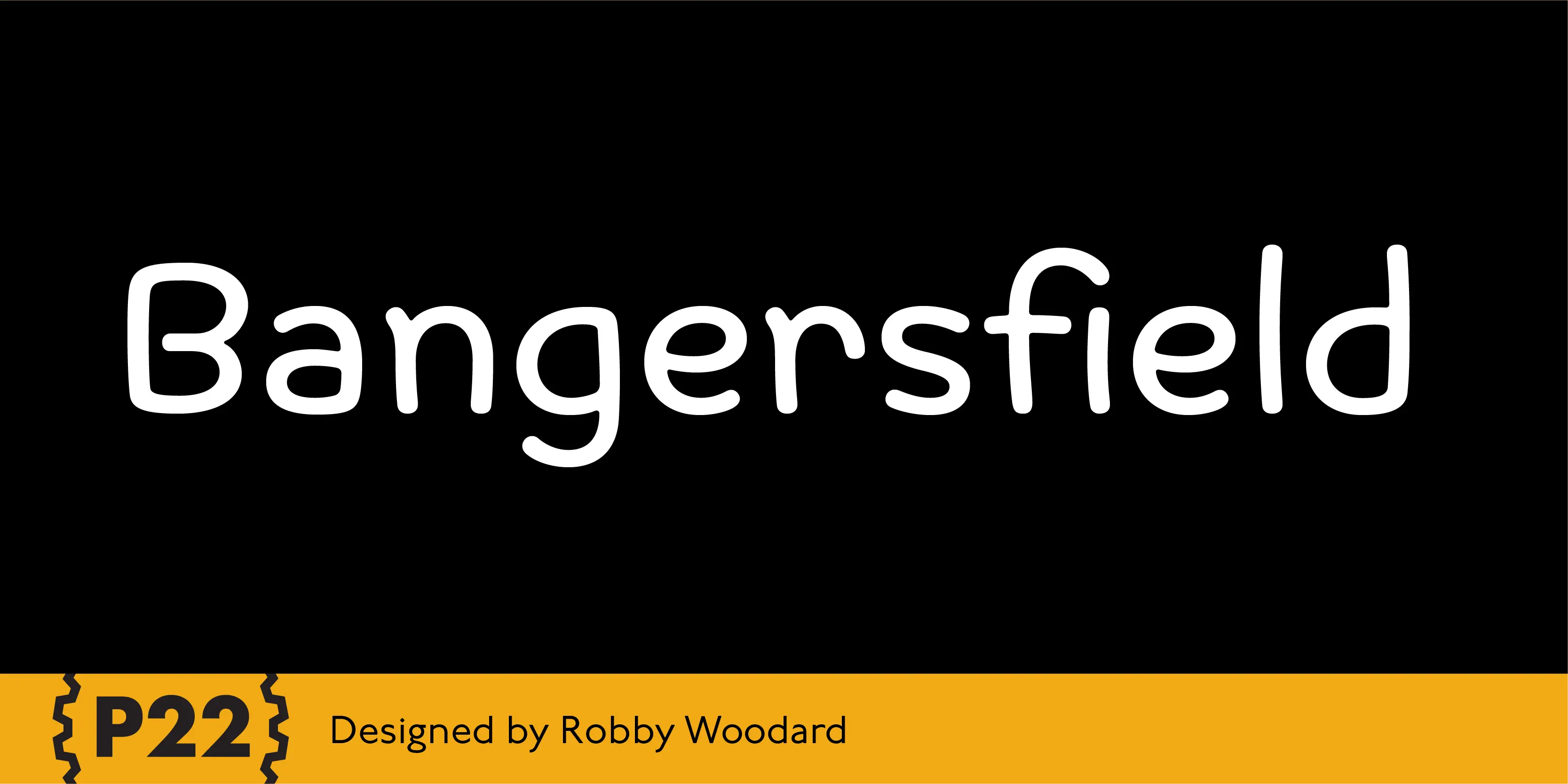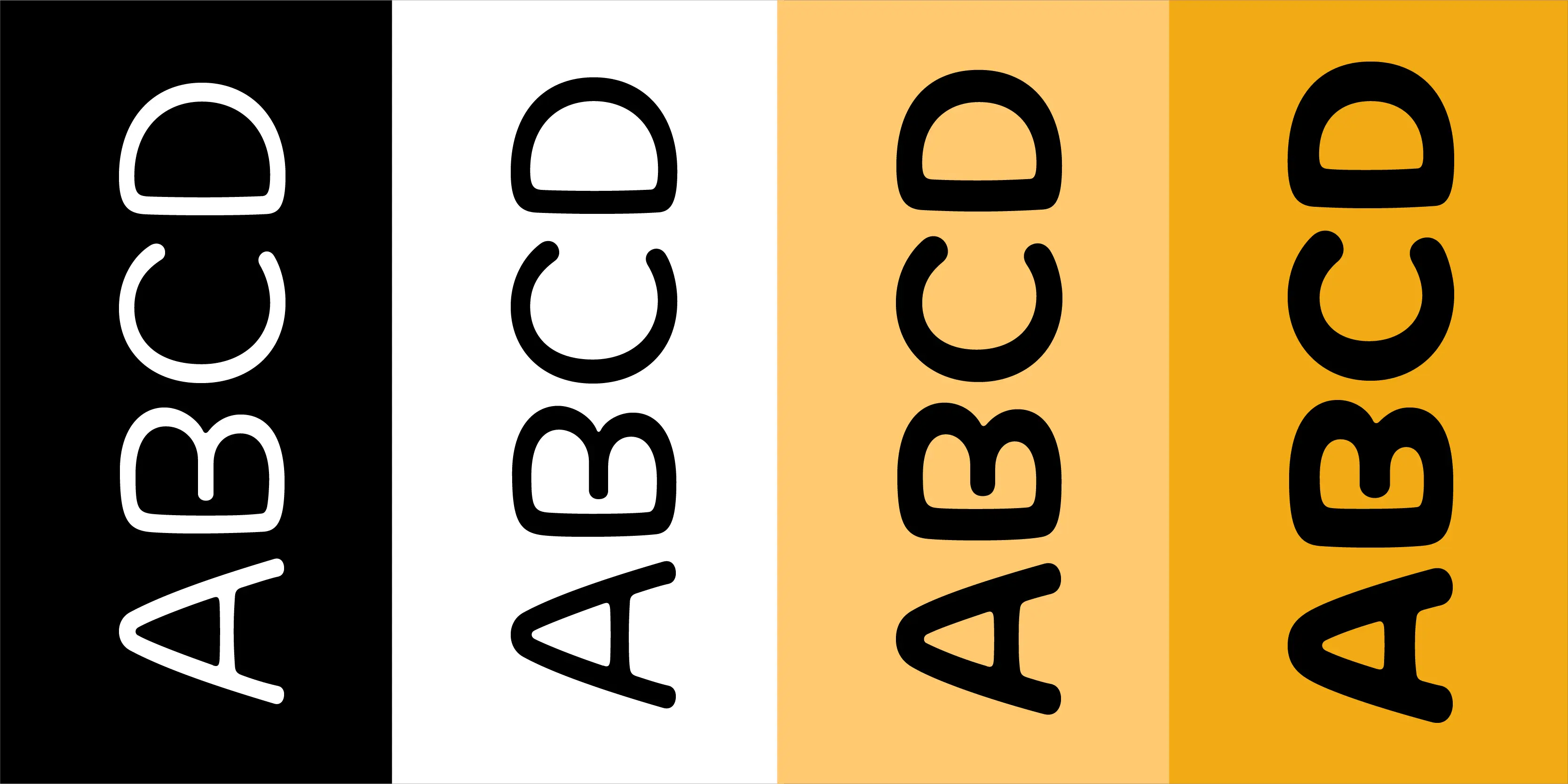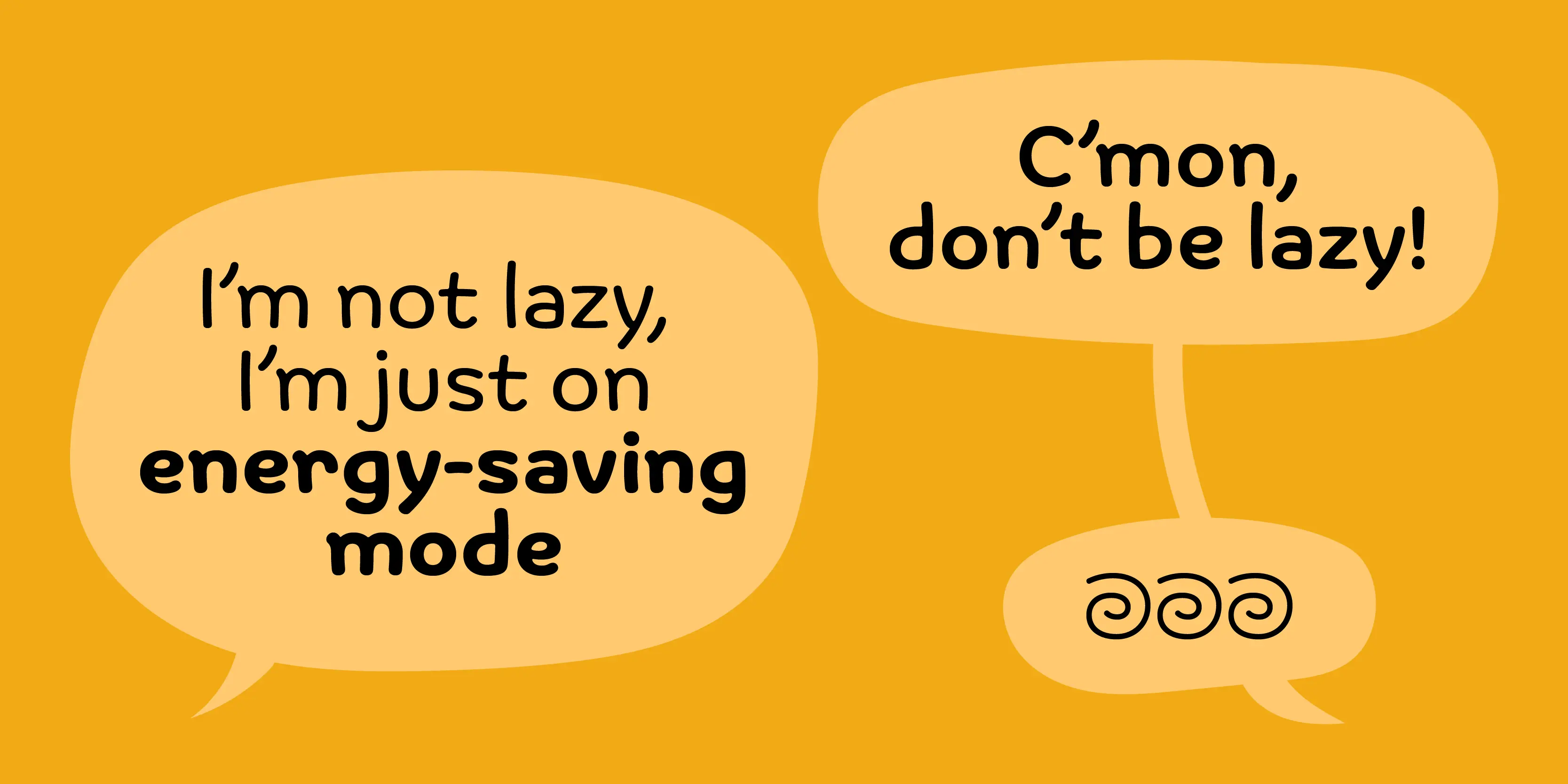
Bangersfield Font Family
Bangersfield
Bangersfield is a four-member font family from Robby Woodard. With line treatments clearly inspired by cased meat products, these fonts function as a healtier alternative to Comic Sans. The casual Script lettering works well for light-hearted design and comic lettering. These fonts are stuffed with opentype features, extra ornaments, and a full Central European character set — over 400 characters per serving. Satisfy your hunger for a fresh take on a stale genre!
• Fractions
• Ordinal Numerals
• Ornaments
• Superscript
Contextual Alternates
Ornaments
Stylistic Set 1
Fractions
Ordinals
Scientific Inferiors
Superscript
Numerators
Denominators